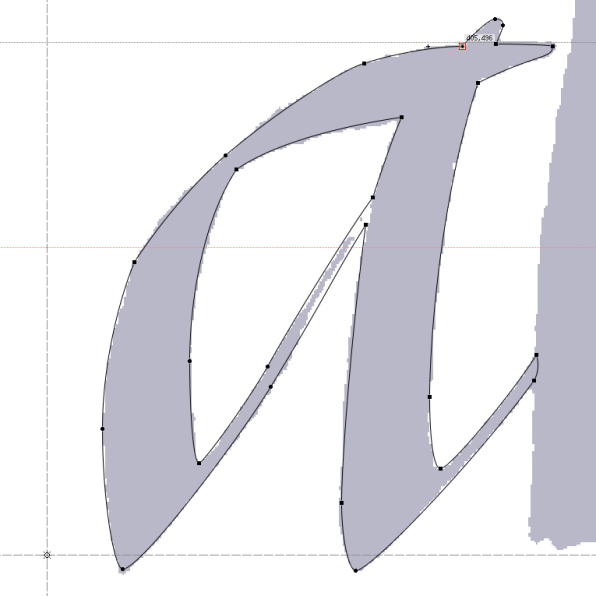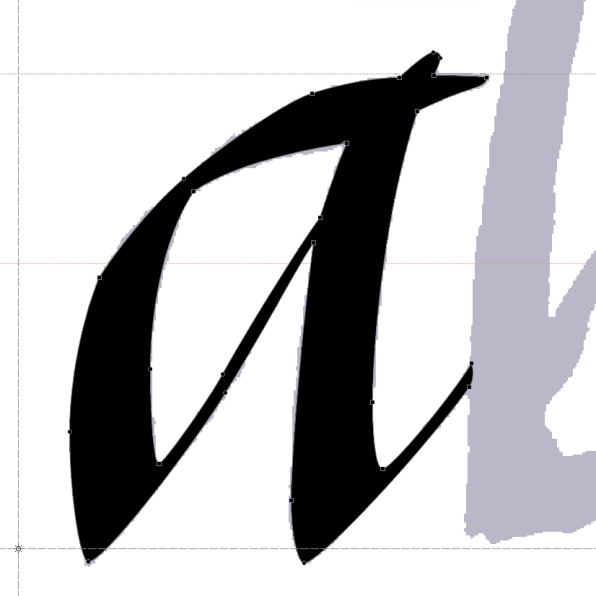
Steve Matteson has designed some of the most ubiquitous typefaces in the world, and engineered the original core fonts for Microsoft, adapting Times New Roman, Arial, and Courier, which you’ve probably used for term papers or resumes or anything else you wrote in Word. He has also created some less-classic designs that he’s not too proud of, such as “Curlz,” which falls in the Comic Sans camp of typefaces reserved for high school yearbooks, princess-themed birthday party invitations, and mockery.
But that is the plight of a professional font designer: One day you get to make lasting letter sets, the next you have to pay the bills. “Sometimes you have to do work that you’re not really proud of,” Matteson, the creative type director at Monotype, told Fast Company. “That’s why we call it work instead of play.”
Matteson’s interest in words began as a teenager, and he set up a printing press in his basement. In college, at the Rochester Institute of Technology, he discovered rare books. He fell out of love with mass printing, and was drawn to calligraphy and lettering as an art form. “You could hold these books and page through them and really appreciate the craft from centuries ago. That really turned me on to the art of the book,” he said.
Despite drawing much of his inspiration from what he calls “old-school” Goudy-style fonts and the book arts, Matteson would go on to create some of the most lasting typefaces of the computing age. And, as we enter a new mobile-first, digital-exclusive era of reading and writing, Matteston is also at the forefront of that typeface revolution, designing for major tablet and e-reader makers.
While recreating the alphabet from scratch sounds like an increasingly difficult task–by now, you’d think that every possible permutation of legible letter shapes has already been created–Matteson sees more opportunity than ever to design new, better fonts. “I worried about that when I first started because back then, 25 years ago, resolutions of screens were so limited, the pixels were so coarse,” he said. “But now that we’re reading on devices, I have a whole new generation of eyeballs to design for.” Fast Company talked with Matteson about how he plans on continuing to make lasting, beautiful, and sometimes wacky fonts.
Designing Typefaces Is More About Restraint Than Freedom
“When designing typefaces, most designers probably find the biggest challenge is exercising restraint in their kind of free thinking as a designer, wanting to just go wild. Typeface design requires so much restraint you have to reign in that impulse to go crazy to make them legible and functional.”
If Design Is Like Writing Music; Font Design Is Like Writing Jingles
“I often equate type design to writing music. A lot of work I do is custom work, working with a client, mobile user interface, or a print magazine. It’s similar to going up to a musician and saying: ‘Write me a jingle. And it has to be written in this key, and it’s going to be sung by a male so it has to be low in the register, and we want it up tempo,’ and all these other sort of things they might specify for a piece of music. It is similar for specifying what they want in the typeface. That builds the structure.”
A Font Generally Starts With An Adjective
“They give me adjectives: approachable, friendly, feminine, masculine. All of these adjectives play into the detailing that we would do to the letter forms to help emphasize those attributes. An example might be if someone said they wanted a ‘friendly’ design. Somebody might think if all the edges of the typeface are rounded that would be ‘friendly.’ If they are really round, it can go too far in the friendly direction. If they want subtle, too-rounded would go too far down the carnival direction, rather than a dress-down Friday level of fun.”
But The Alphabet Actually Starts With The Letter H
“What type designers do is start with the cap ‘H,’ cap ‘O,’ and cap ‘V,’ and lowercase ‘n,’ ‘o,’ ‘d.’ Those give you a lot of information about what the other letters are going look like. The thickness of the stems and how big the lowercase is compared to the uppercase, that relationship is very critical to legibility and it has a big effect on how elegant the design looks. Then you start filling out the alphabet and adding characteristics to curves. It’s a very methodical process.”
Outside Inspiration Is, However, Welcome
“I’ve spent a lot of time hiking and backpacking in the Sierra Nevada; many times I’ve been to Yosemite. The shape of Half Dome has beautiful soft curvature at the top and abruptly falls straight down. The contrast of that smooth polished granite and sheer cut off always looked like something very graphic to me. I sketched it several times while hiking and I used that in one of my typefaces.”
If You Want To Create A Lasting Font, Look To Tradition
“Letter forms can only change so much because the tradition is (based on) the past. As you start adding funky quirks to things, there is less chance that those funky features are going to live as long as traditional timeless things. I will give an example: The Roman capitals, for instance, the Romans inscribed into monuments back in the 3rd and 4th century are considered the most perfect form of the Roman capital alphabet. A lot of typefaces have been influenced by these shapes and proportions.
We’re About To Enter A New Age Of Font Design
“Looking forward so many people are using a typeface specifically on a device where digital is the final product. There are very few typefaces designed with that in mind. Almost every typeface out there, save for maybe 30 or 40, out of 100,00–very few have been designed for reading on the screen. We’re designing for the next generation of typography. Let’s think about what makes type comfortable to read on a device like a Nook or a Kindle and use that as our target.”